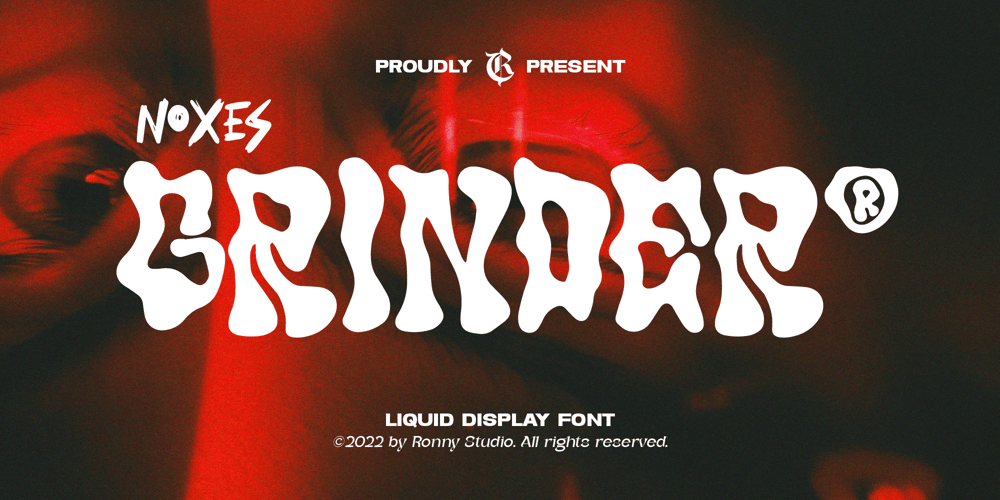
Noxes Grinder Font Family was designed by Rony Rizki Jaya and published by Ronny Studio. Noxes Grinder contains 1 styles and family package options. Grinder it’s retro, bold, and playful, really ties together your piece to give it that retro feel. This is font perfect for designers who are looking to add a psychedelic acid graphics contemporary hand-done touch to their projects. be it posters, magazines, Instagram, online, or branding. whatever you want to spice up with a little liquid text Grinder is the tool.Features :- Lowercase & Uppercase- numbers and punctuation- multilingual- PUA encodedPlease contact us if you have any questions. Enjoy Crafting and thanks for supporting us! :)Thank you